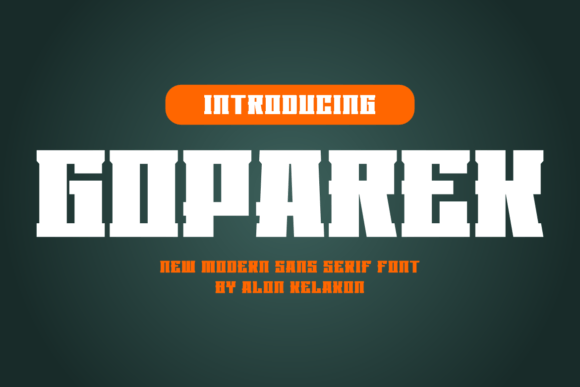
Introduction to Goparek Font
Goparek is a bold and authentic display font.
Whatever the topic, this font will be a wonderful asset to your font library, as it has the potential to enhance any creation .
Goparek Font offers exceptional quality and versatility, making it a valuable addition to your design toolkit. Whether you’re creating for personal projects or commercial use, Goparek Font delivers professional results.